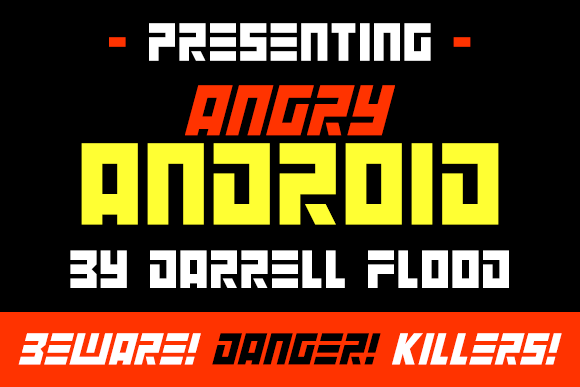
Introducing Angry Android Font: The Perfect Choice for Sci-Fi and AI Themes
In the world of typography, fonts play a crucial role in conveying the tone and style of a design. For designers and crafters working on sci-fi projects or AI-related themes, finding the right font can be a challenge. That’s where Angry Android Font comes in – an angular, futuristic font in a robot-like style that’s perfect for adding a touch of futurism to your designs.
What is Angry Android Font?
Angry Android Font is a unique and captivating typeface designed to evoke a sense of technology and innovation. Its angular and robotic style is reminiscent of futuristic sci-fi movies and AI-powered robots. The font’s design is carefully crafted to convey a sense of strength, resilience, and cutting-edge technology, making it an ideal choice for designers looking to create a bold and futuristic look.
Key Features of Angry Android Font
- Angular and Futuristic Design: Angry Android Font boasts a distinctive angular design that gives it a futuristic and robotic feel. The sharp lines and geometric shapes make it perfect for sci-fi and AI-related themes.
- Robot-Like Style: The font’s robot-like style adds a touch of mechanization and technology, making it ideal for designs that require a sense of innovation and futurism.
- High Versatility: Angry Android Font is highly versatile and can be used for a wide range of design projects, from posters and flyers to logos and branding materials.
- Easy to Read: Despite its futuristic design, Angry Android Font is easy to read and understand, making it perfect for body text and headings.
Use Cases for Angry Android Font
Angry Android Font is perfect for a variety of design projects, including:
- Sci-Fi Movies and Games: The font’s futuristic design makes it an ideal choice for sci-fi movies, games, and posters.
- AI and Robotics: Angry Android Font is perfect for AI-related themes, robotics, and technology startups.
- Futuristic Posters and Flyers: The font’s bold and angular design makes it perfect for creating eye-catching posters and flyers.
- Logo Design: Angry Android Font can be used to create unique and memorable logos for technology and innovation-based companies.
Tips for Using Angry Android Font
To get the most out of Angry Android Font, here are some tips to keep in mind:
- Use it Boldly: Angry Android Font is designed to make a statement, so don’t be afraid to use it boldly and prominently in your designs.
- Experiment with Colors: The font’s futuristic design looks great with bright, bold colors, so experiment with different color schemes to find the perfect combination.
- Pair it with Simple Backgrounds: Angry Android Font works best with simple backgrounds, so avoid cluttered or busy backgrounds that may distract from the font’s impact.
Angry Android Font is a unique and captivating typeface that’s perfect for designers and crafters working on sci-fi and AI-related themes. Its angular, futuristic design and robot-like style make it an ideal choice for adding a touch of futurism to your designs. With its high versatility, ease of readability, and bold impact, Angry Android Font is sure to become a go-to font for designers looking to create stunning and futuristic designs.